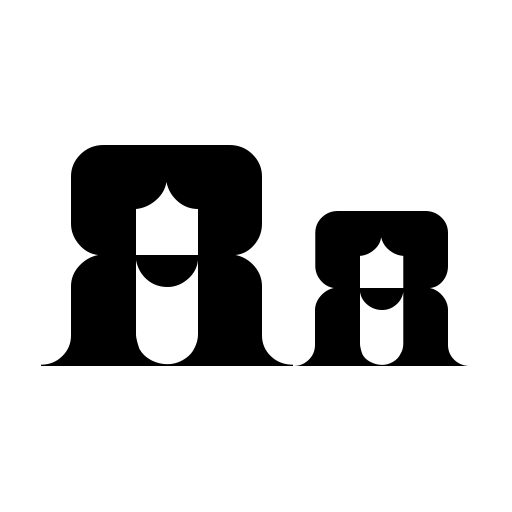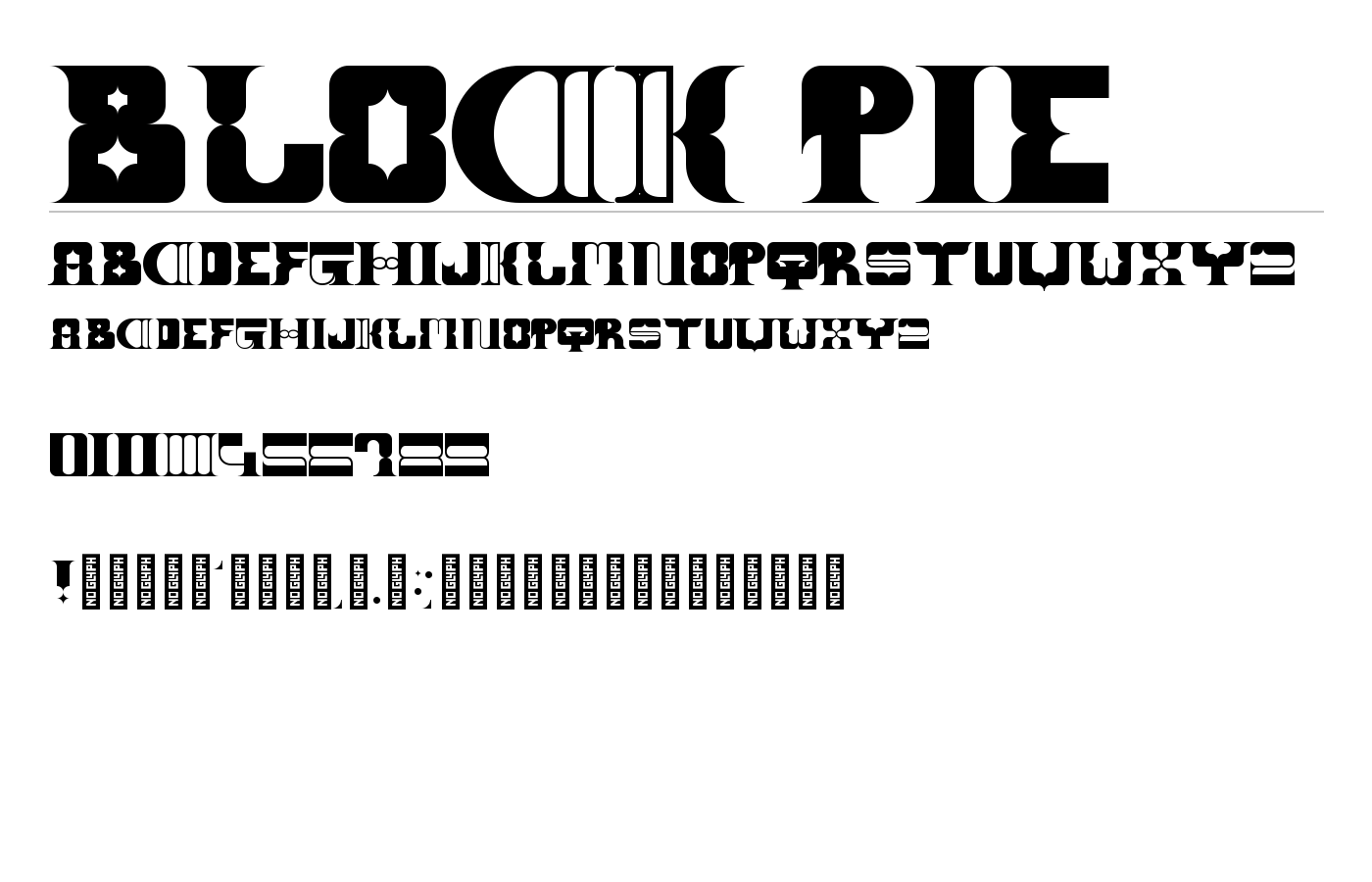
BLOCK PIE is a bold, decorative slab serif font characterized by its thick, blocky letterforms combined with sharp, playful cutouts and unique geometric shapes within each glyph. This font exudes a strong, vintage Western vibe with a modern twist, making it perfect for eye-catching headlines, logos, and branding that seek a bold, unconventional, and artistic statement. Its distinct style works especially well in poster design, packaging, and creative projects aiming to stand out with a retro yet contemporary personality.
BLOCK PIE Font